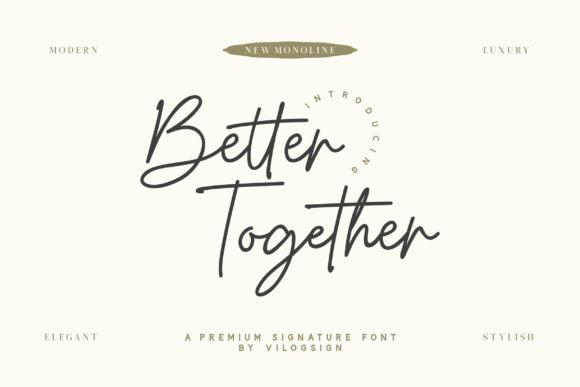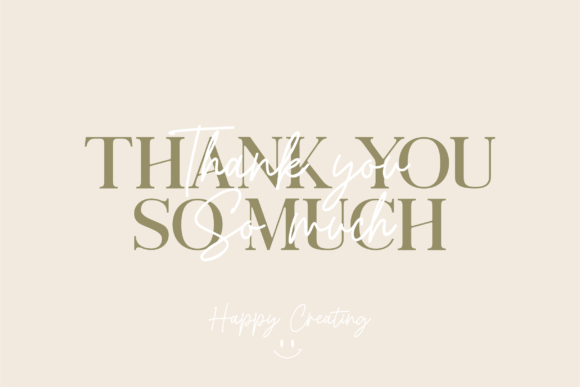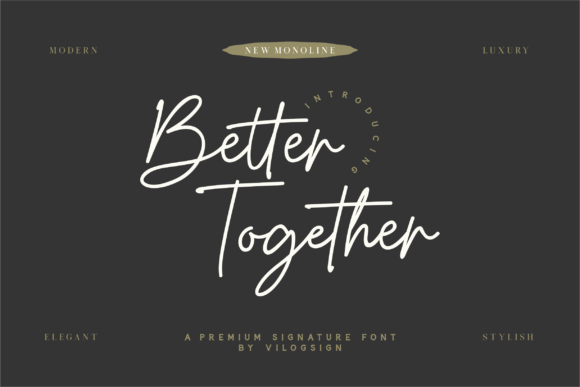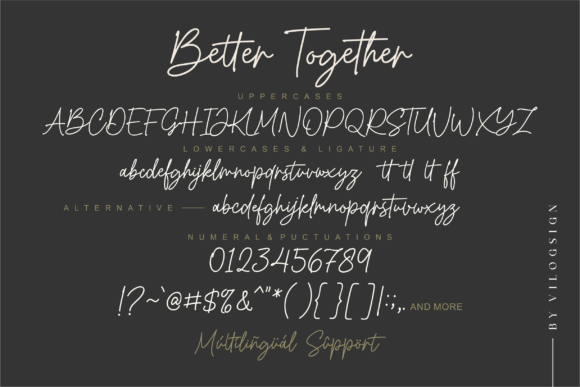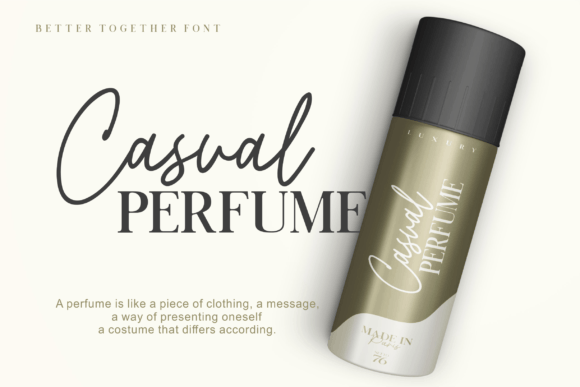
About Better Together Font
Introducing Better Together, a monoline script font that exudes a modern look and feel. This typeface is crafted with a sleek and contemporary design, making it perfect for a diverse range of applications. Whether you’re working on branding, invitations, labels, logos, magazines, books, greeting or wedding cards, packaging, fashion, makeup, stationery, novels, or advertising, Better Together is a versatile font that adds a touch of sophistication to your designs.
The monoline script style of Better Together brings a seamless and consistent flow to your text, creating a clean and modern appearance. It is well-suited for formal and professional contexts, making it an excellent choice for branding and other formal forms.
For branding projects, Better Together becomes a defining element that communicates a modern and polished identity. Its sleek script style adds a touch of elegance, making your brand stand out with a contemporary flair.
Invitations and greeting cards benefit from the modern look and feel of Better Together. The font enhances the overall aesthetic of your designs, whether you’re working on formal events or more casual occasions.
In editorial design, including magazines and books, Better Together adds a touch of sophistication to headlines and titles. Its modern script style contributes to a visually appealing layout that captivates readers.
Packaging, fashion, and makeup industries find a reliable companion in Better Together. The font’s modern design aligns with current trends, making it a valuable asset for creating visually appealing and on-trend product labels and packaging.
Whether you’re working on stationery, novels, or advertising materials, Better Together brings a contemporary touch that elevates your designs. Its versatility ensures that it can adapt to various creative projects, providing a consistent and modern script style.
In summary, Better Together is not just a font; it’s a modern script typeface that enhances the visual appeal of your designs. Choose Better Together to infuse your projects with a sleek and contemporary look, making a lasting impression across a variety of applications.